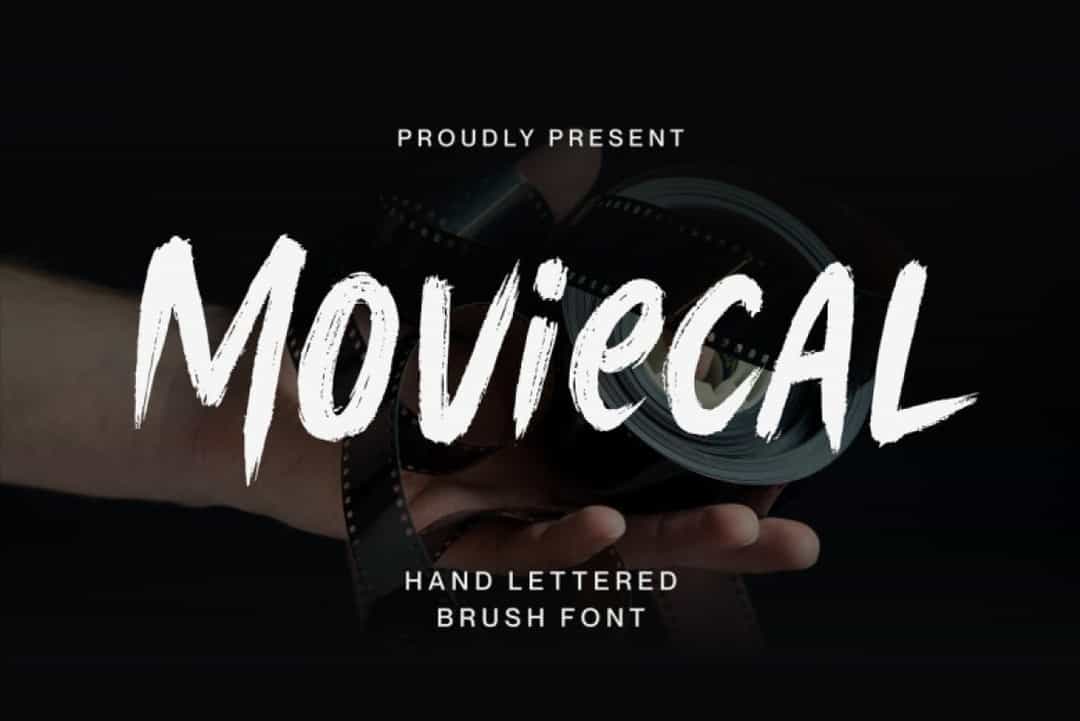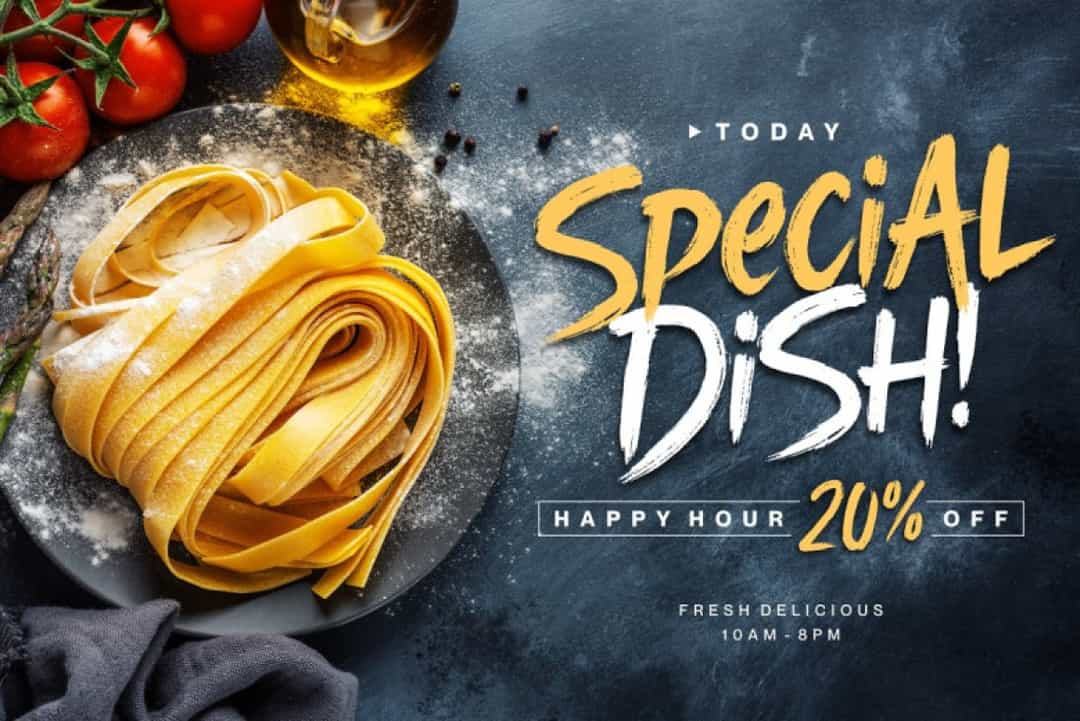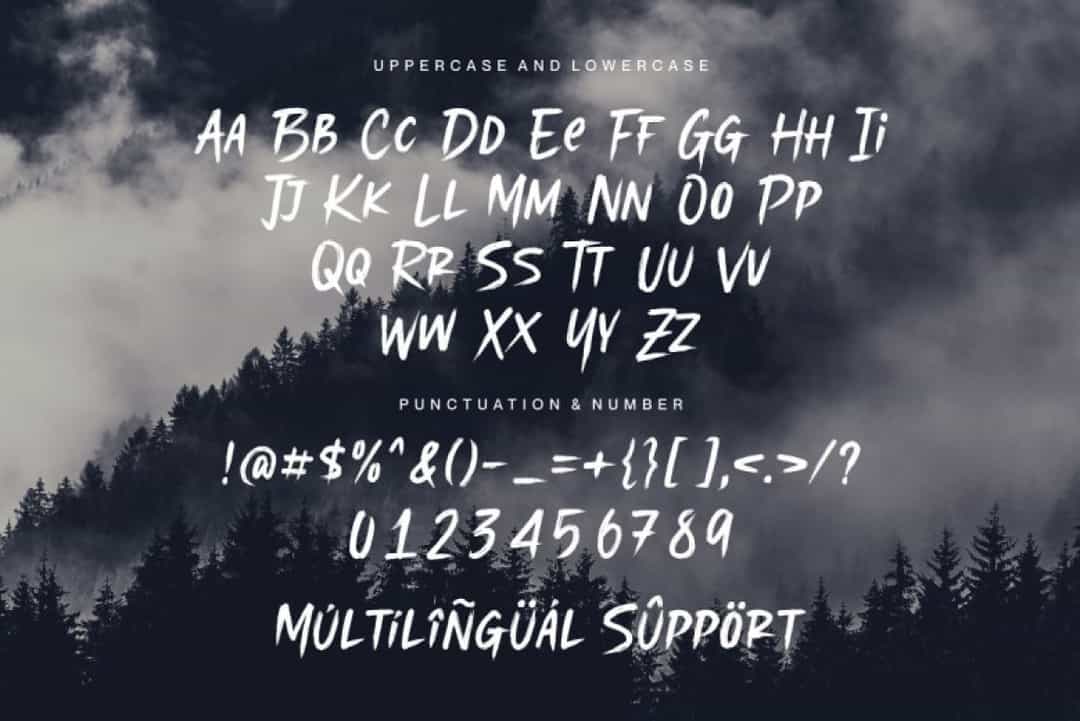
Discover Moviecal Font, part of the Brush collection—a versatile and unique font perfect for adding a personal touch to your projects. Download it for free and enjoy crafting designs with style, from invitations to social media posts. This font is available exclusively for personal use, giving you the freedom to create without limits. Unlock your creativity with Moviecal Font today!
Moviecal, A Handlettered Brush Font. Perfect for use as titles, logos, product packaging designs, branding magazine weddings social media or simply to express words over background imagery, Moviecal features Multi-Lingual support as well.Q2